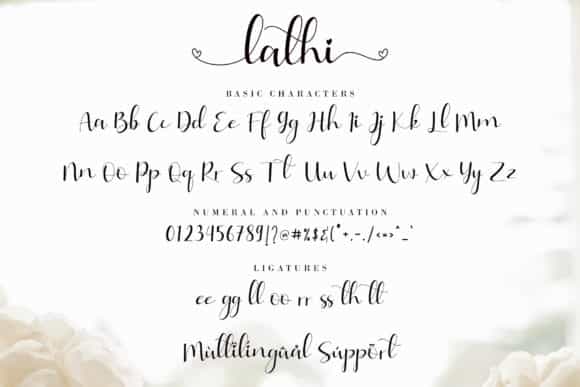
Lathi is a font that is developed for calligraphy script comes with an extensive character set and multiple ligatures that add style to the text. Thus, lathi can be applied to your branding needs such as logos, blogs, websites, and any other typography works.